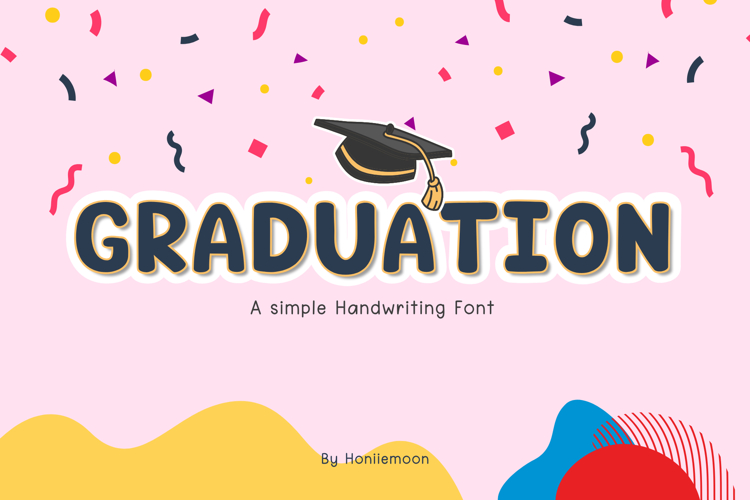
Graduation Handwritten Font - Playful Font for School & Crafting
Bring a touch of joy and whimsy to your creative projects with Graduation. This font is designed with a cute, rounded, and easy-to-read style, making it perfect for teachers, crafters, and digital artists. Whether you are creating classroom materials, personalized gifts, or social media graphics, this font adds a friendly and approachable feel.